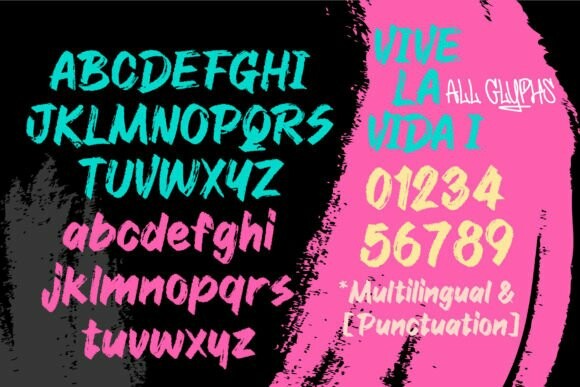
Vive La Vida Font
Vive La Vida Font, a graffiti style font, masterfully crafted using an exquisite brush pen. This font exudes a warm, friendly feel that lends itself to a myriad of applications, from t-shirt designs and poster ads to cosmetics packaging, menus, and business cards. Plug it into your creativity to achieve a unique spin in your designs and watch them pop out with a distinction of their own!